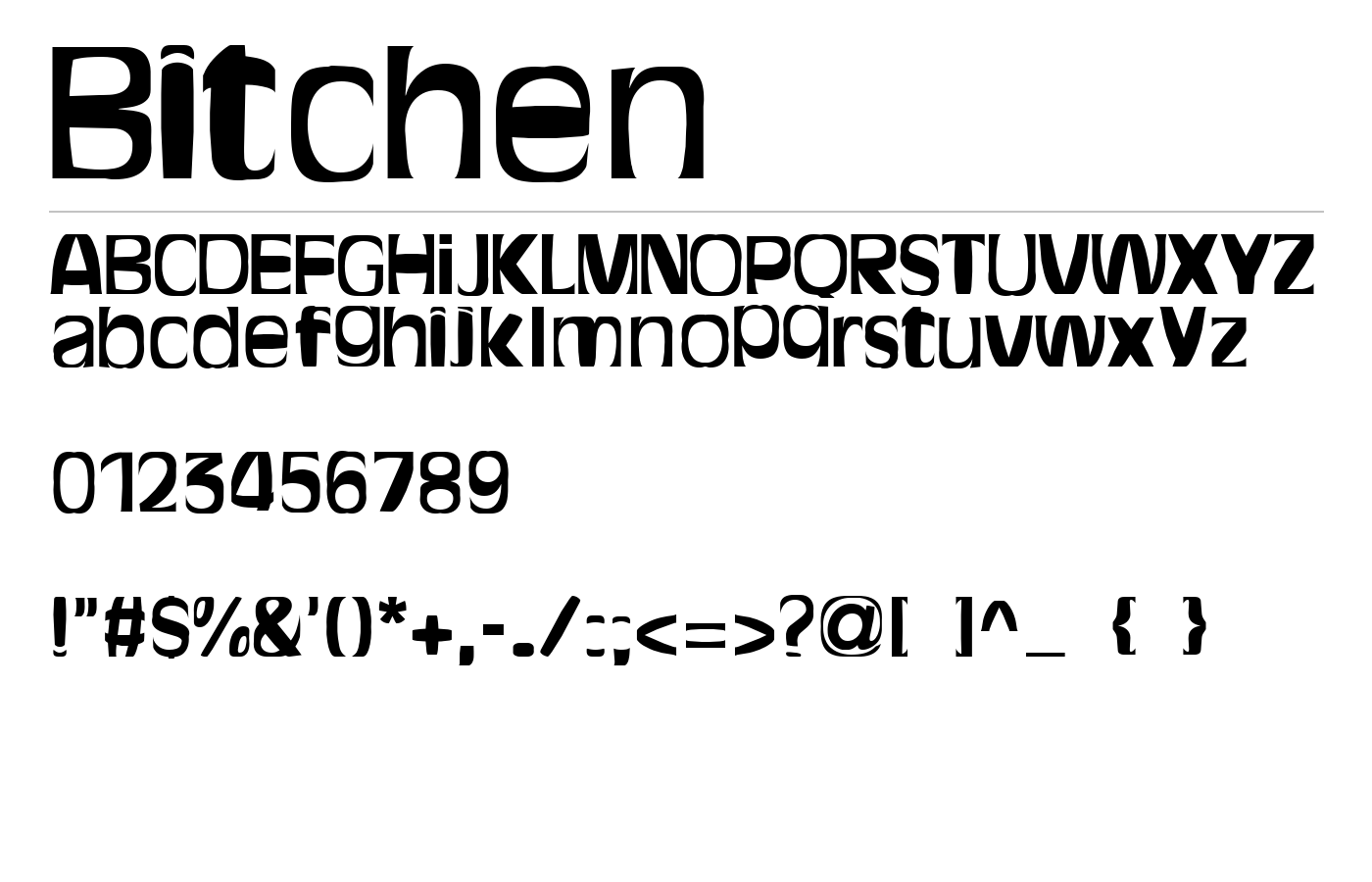
Bitchen Font is a bold, condensed sans serif with a quirky and playful personality, featuring uneven stroke widths and slightly irregular letterforms that create a hand-crafted, artistic feel. Its high contrast and unique shapes make it eye-catching and ideal for creative headlines, logos, and branding where a distinct, informal yet strong presence is desired. This font works well in projects aiming for a modern, edgy vibe with a fun twist.
| Font family | Bitchen Font |
| Designer | ©THOMAS CANALE 2013 |